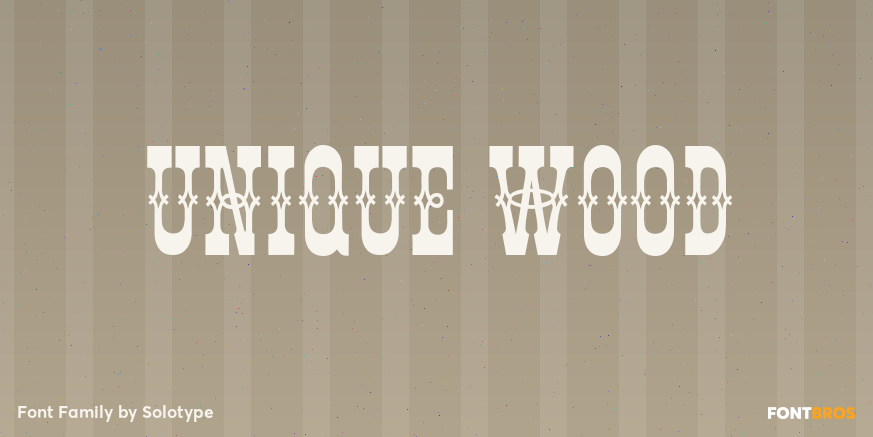
HomeFont BrosHistoricalUnique Wood HistoricalSpecial Effect Unique Wood FacebookXPinterestWhatsApp 1 of 1 About Unique Wood Wood type maker W. H. Page designed this in 1870. Caps, figures and points only. A great decorative for old-timey poster work.  DOWNLOAD NOW People also explored Overture Font Amelia Font Maister Deobird Font Artistic Draft Font Machina G Herdson Font Thenicle Extra Black Font Zaheera Font 223 0 TagsUnique Wood Font Previous articleStatendamNext articlePAG Karogs LEAVE A REPLY Cancel reply Comment: Please enter your comment! Name:* Please enter your name here Email:* You have entered an incorrect email address! Please enter your email address here Website: Save my name, email, and website in this browser for the next time I comment. Personal Use Free Comic Caps Personal Use Free Read more about this font Coconote Personal Use Free Read more about this font Lovetle Personal Use Free Read more about this font Super Discount Personal Use Free Read more about this font BLOG Free vs Paid Fonts: Why Investing in Premium Fonts Is Worth It Free vs Paid Fonts: Why Premium Fonts Are Worth It in 2025 The debate of free vs paid fonts continues in the design world. While... Fonts That Capture the Spirit of New York City How to Cut Any Font on Cricut: Convert a Font to SVG (Free) Top 7 Google Fonts Alternatives for Faster and Privacy-Friendly Web Design (2025)